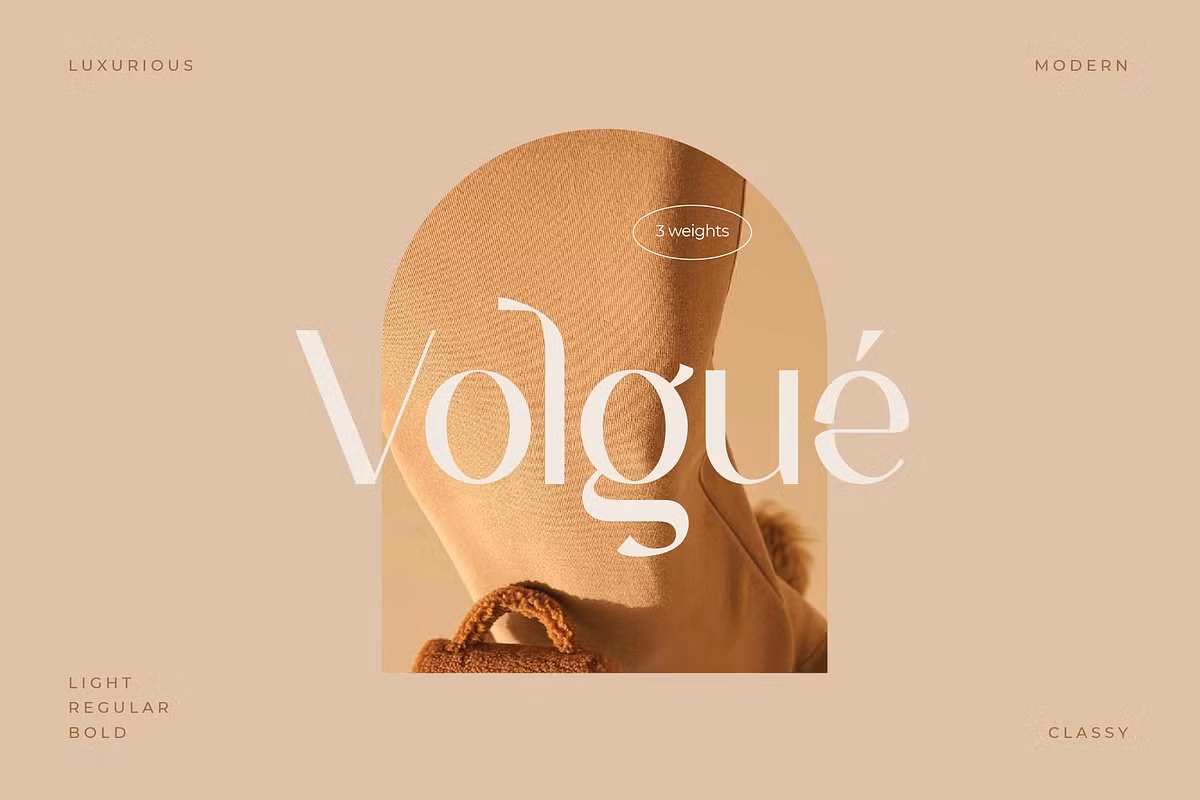
Volgue - Chic Modern Typeface Free Download
Volgue - Chic Modern Typeface Free Download is a sleek and elegant typeface that combines contemporary sophistication with timeless design. With its clean lines, balanced proportions, and minimalistic appeal, Volgue is perfect for high-end branding, editorial layouts, fashion design, luxury packaging, and modern web design.
Its modern aesthetic, paired with sharp letterforms and subtle curves, makes it versatile for both large headings and smaller text. Whether you're designing for a fashion magazine, a luxury product, or a corporate identity, Volgue offers the refinement and style your project deserves.